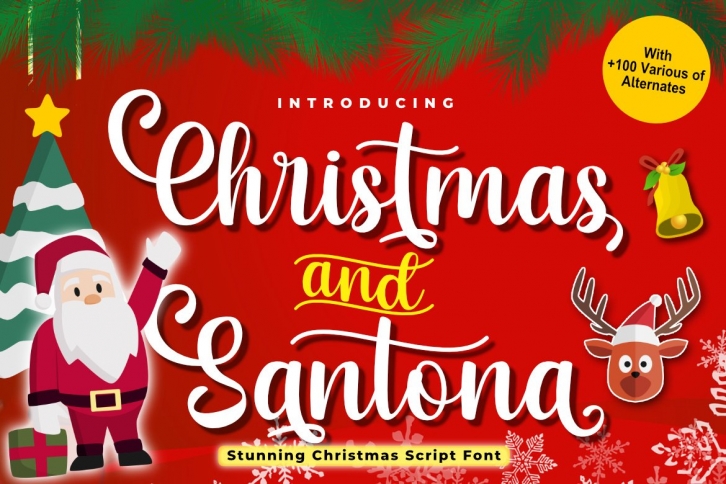
Christmas and Santona | A Beautiful Chirstmas Script Font Download
Christmas and Santona is a beautiful font that was designed by Madatype Studio. It's a great choice for designers and creatives who need such a font. It was released on October 18, 2020 and the file size is 5.25 MB. Christmas and Santona may give a more youthful, expressive and casual look to your project. It is a very beautiful, refined, elegant, and high-quality font.